Discover our exclusive collection of 8 stunning font duo packages featuring script, serif, and sans-serif combinations perfect for luxury branding, modern design, and creative projects.
Why Font Duos Are Essential for Modern Design
Font duos have become the cornerstone of contemporary design strategy. Unlike single fonts, font duos provide built-in harmony and contrast, making it easier to create visual hierarchy while maintaining design consistency. Our collection of 8 premium font duos offers pre-matched typography combinations that eliminate guesswork and accelerate your design workflow.
Featured Font Duos in Our Premium Collection
1. Alcantera Script – Elegant Serif & Script Duo
Alcantera combines the sophistication of serif typography with the flowing elegance of script lettering. This font duo offers versatility for projects requiring both formal structure and artistic flair. The serif component provides excellent readability for body text, while the script variant adds personality to headlines and decorative elements.
2. Bright Charm – Elegant and Stylish Font Duo
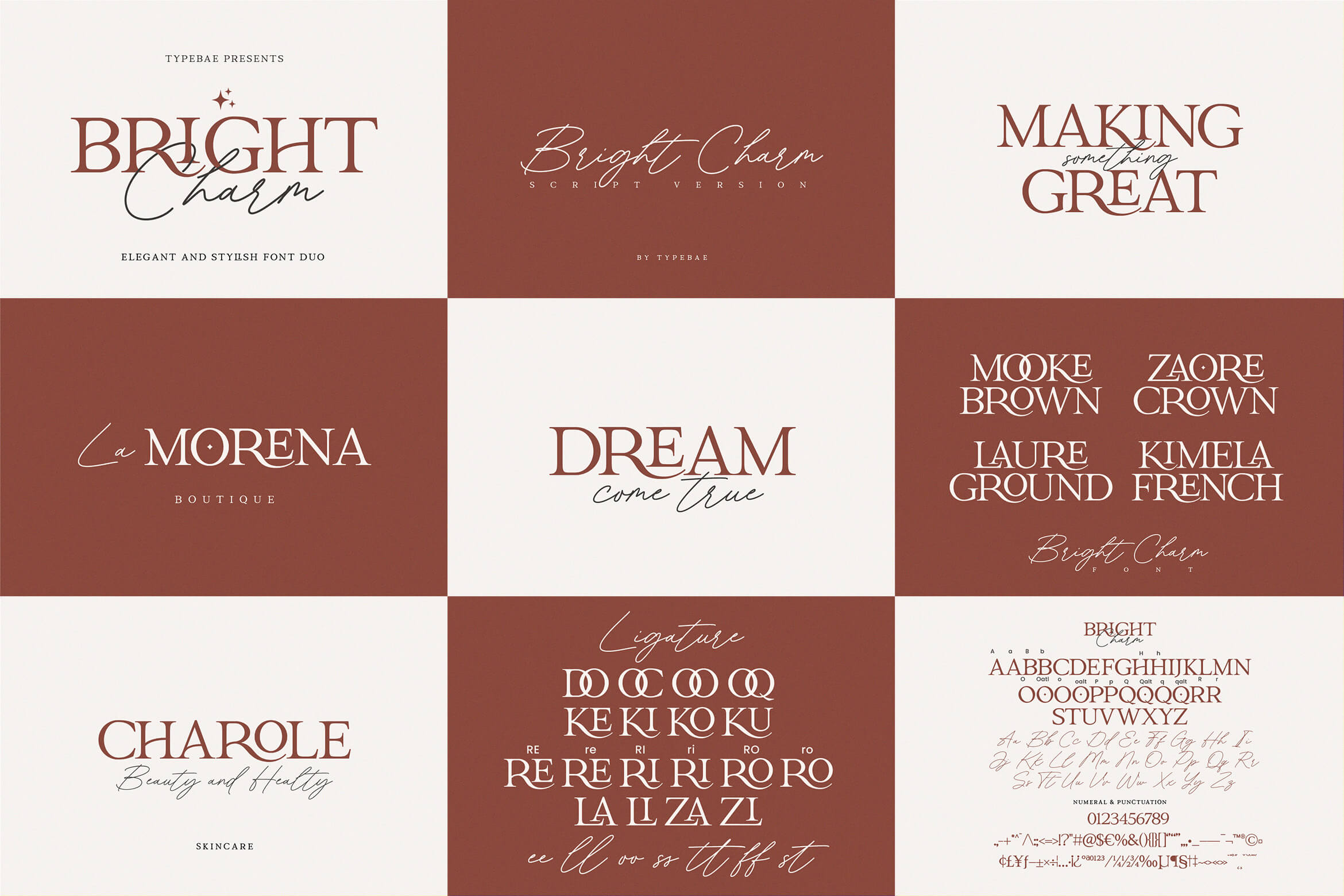
The Bright Charm collection brings together modern serif typography with charming script elements. Thispairing works exceptionally well for brands that want to convey both professionalism and warmth.
3. Paris Signature – Luxury Font Duo
Embodying the essence of Parisian elegance, this font duo combines bold serif letters with refined script elements. The Paris Signature collection is perfect for projects requiring sophistication and style.
4. Morien – Modern Sans and Script
This contemporary pairing offers a fresh take on the classic duo concept, combining modern sans-serif elements with signature-style script fonts. Morien Signature is ideal for brands seeking a modern yet personal touch.
The Balgend collection showcases the perfect balance between stylish serif and script fonts. This duo is particularly effective for projects requiring both elegance and readability.
6. Briton Pair – Stylish Ligature Serif Font Duo
Featuring 25 ligatures, the Briton Duo offers extensive customization options. This sophisticated pairing includes both serif and script variations, making it incredibly versatile for various design applications.
7. Besthia Display – Vintage Serif Font Duo
The Besthia Display duo combines bold display characteristics with delicate script elements. This unique pairing includes 52 stylistic alternates and 26 ligatures, offering unprecedented customization flexibility.
Elevate Your Designs with Premium Font Duos
The right font duo can transform ordinary designs into extraordinary visual experiences. Whether you’re working on luxury branding, wedding stationery, or modern web design, investing in quality typography pays dividends in professional results and time savings.
These eight featured font duos represent the pinnacle of contemporary typography design, offering the perfect blend of elegance, functionality, and creative flexibility. Each pairing has been carefully crafted to ensure seamless integration and stunning results across all applications.
Don’t let mediocre typography hold back your creative vision. Explore these premium font duos and discover how the right typography can elevate every aspect of your design work.